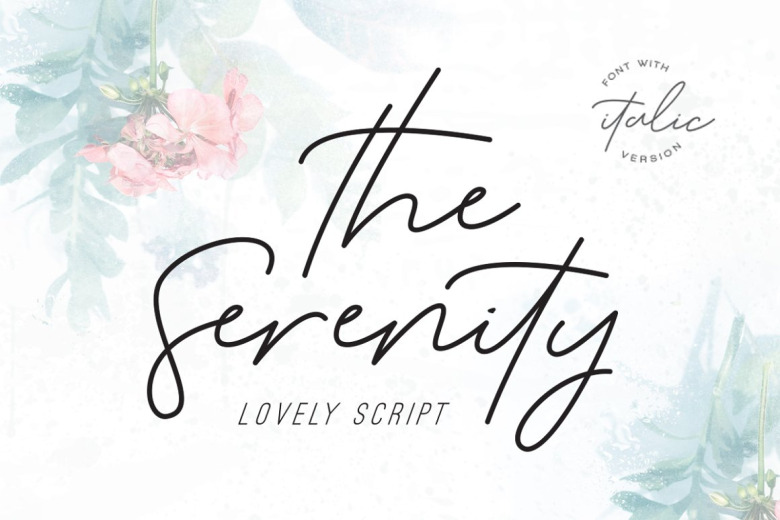
The Serenity Script Font
Say hello to SERENITY! – A new slant script with awesome, endless possibilities. A perfect addition to the professional designers font.
Serenity a natural signature style font, loaded with awesome opentype features, including 39 natural looking ligatures, bold family, as well as a full alternate upper and lowercase character set and multilingual too.